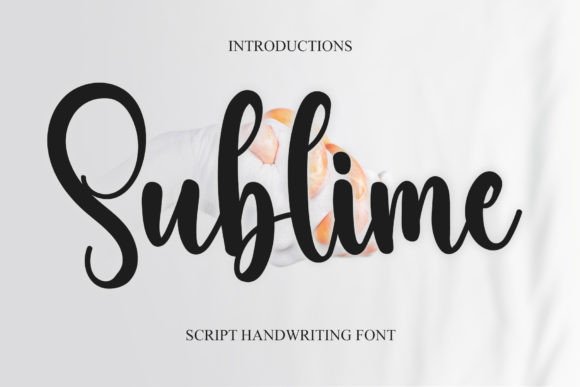
In this digital era, where personal and professional communications are conducted through screens, your choice of font speaks volumes. Let me introduce you to Sublime Font, an elegant script font family that elevates your messages with grace and sophistication.
Crafted by the renowned YanStudio, Sublime Font is a testament to timeless classic calligraphy, adapted for the modern world of business. Its delicate strokes and harmonious curves bring warmth and charm to your designs, leaving a lasting impression on your audience.
Whether you're crafting marketing materials, designing logos, or creating social media posts, Sublime Font adds a touch of elegance and professionalism that sets your work apart. Its versatility lends itself to a wide range of applications, from formal invitations and certificates to casual blogs and personal correspondence.
With Sublime Font, you'll captivate your audience with messages that resonate deeply, leaving them inspired and eager for more. It's the perfect choice for businesses that value sophistication, authenticity, and a desire to connect with their customers on a personal level.
Here's why Sublime Font is the perfect choice for businesses looking to leave a lasting impression:
* It's effortlessly stylish, adding a touch of elegance to any project.
* Its versatility shines across a wide range of applications, from formal to casual.
* It's easy on the eyes, making your messages more readable and engaging.
* It exudes a sense of professionalism, building trust and credibility with your audience.
Don't settle for ordinary fonts that blend into the background. Embrace the beauty of Sublime Font and let your messages shine with confidence and charm. Your business deserves the best, and Sublime Font is ready to deliver.